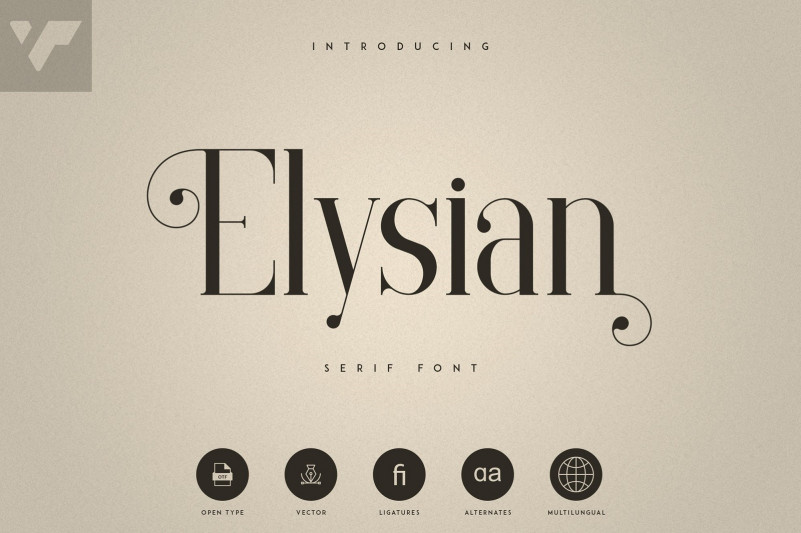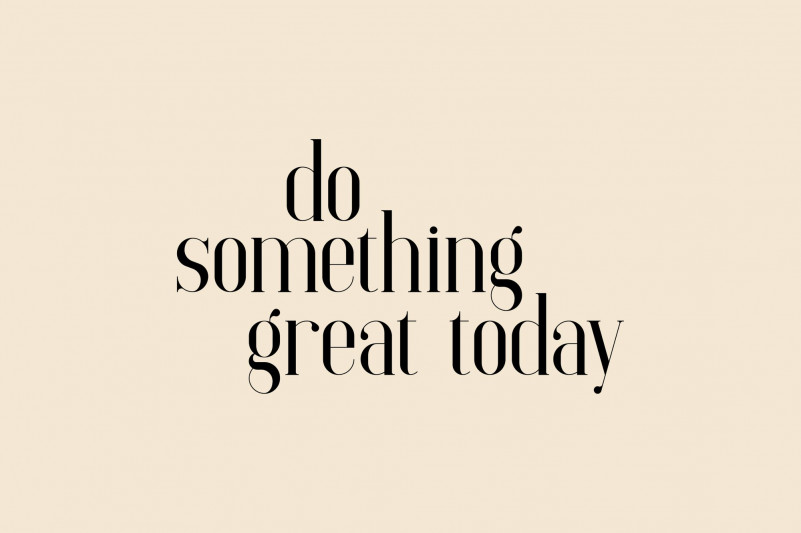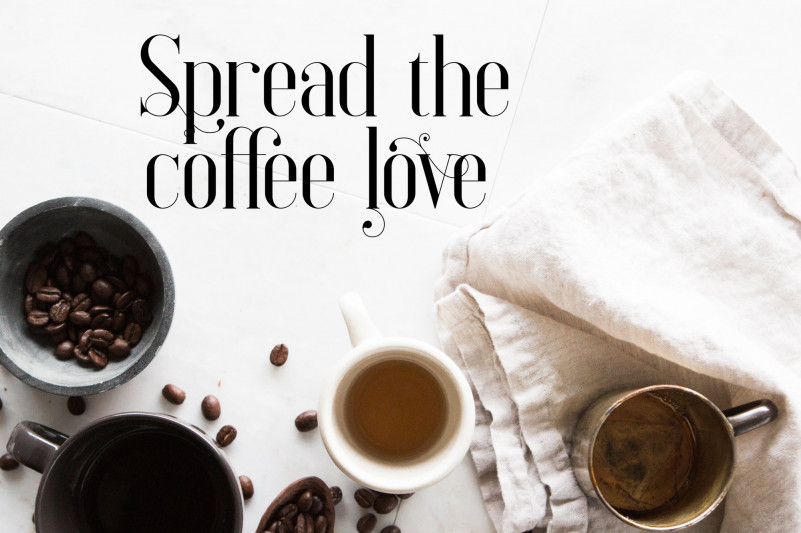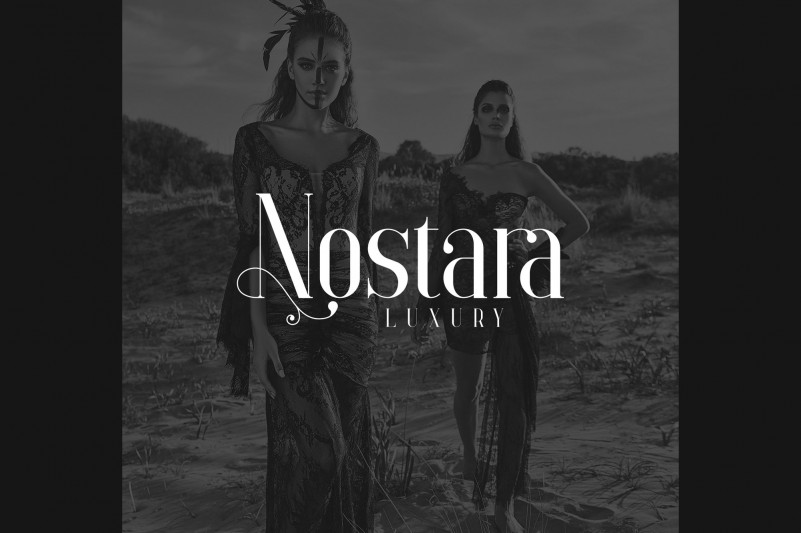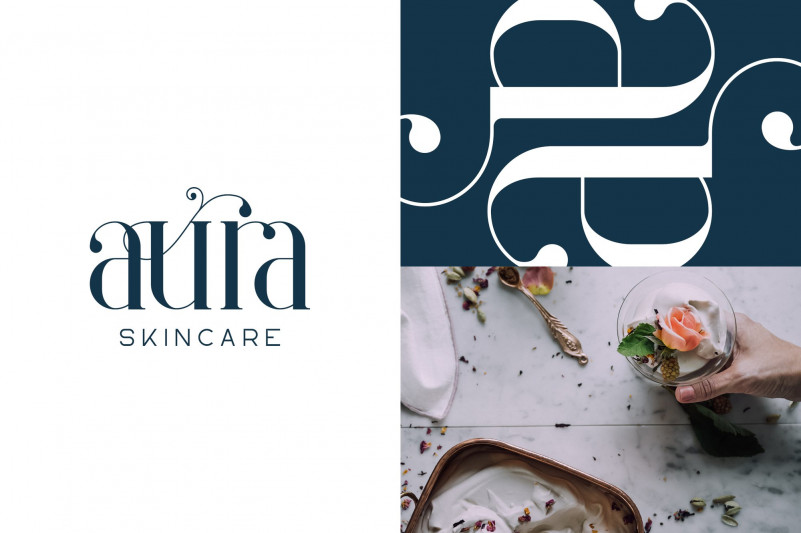
Elysian Serif Font is vintage, elegant font with tons of alternate glyphs, ligatures and multilingual support. It’s a very versatile font that works great in large and small sizes.
Elysian Serif Font is perfect for branding projects, home-ware designs, product packaging, magazine headers – or simply as a stylish text overlay to any background image.
- Uppercase, lowercase, numeral,punctuation & Symbol
- Alternate glyphs
- Ligatures
- Multilingual support